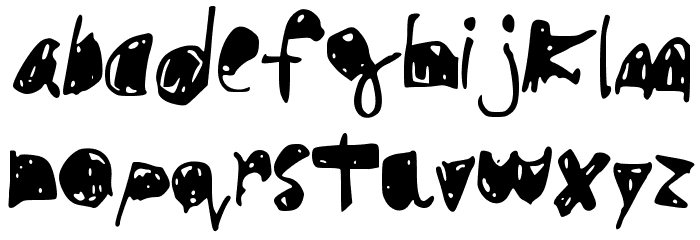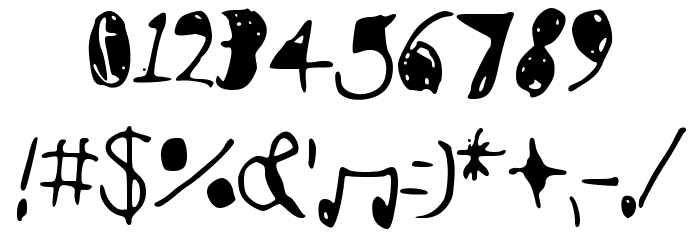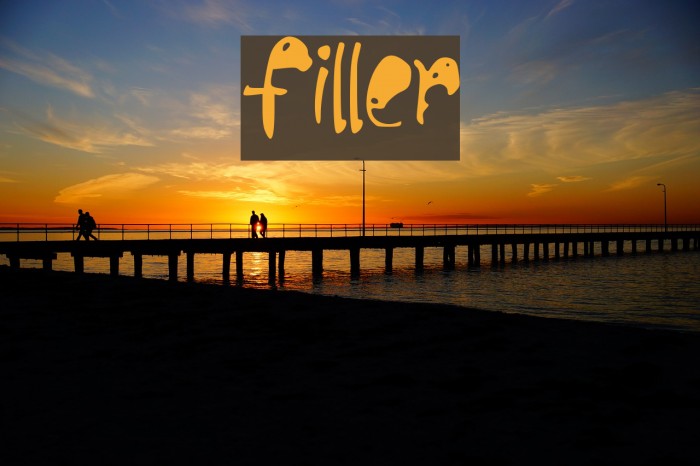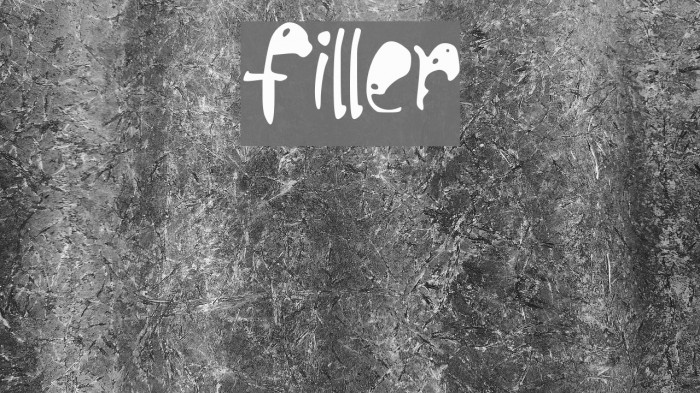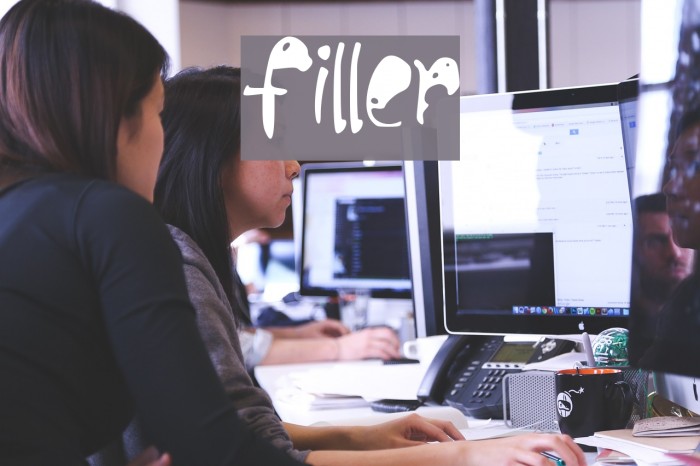
filler_ Font
This font is a bold and playful display typeface with a hand-drawn aesthetic. The characters are irregular and whimsical, featuring a mix of thick and thin strokes that create a dynamic and energetic feel. The uppercase letters are particularly bold, with some characters having unique decorative elements like dots and lines within them. The lowercase letters maintain the playful style with a slightly more fluid and cursive touch. Numbers and special characters follow the same quirky design, making the font suitable for creative and informal projects. The overall style is reminiscent of doodles or graffiti, adding a fun and artistic flair to any design.
A bold, playful, and hand-drawn display font with a whimsical and energetic style.
- Proposed Projects: Ideal for children's books, playful branding, posters, and creative social media graphics.
- Overall Style: Playful, Artistic, Whimsical
- Use Case: Headlines, Posters, Creative Branding